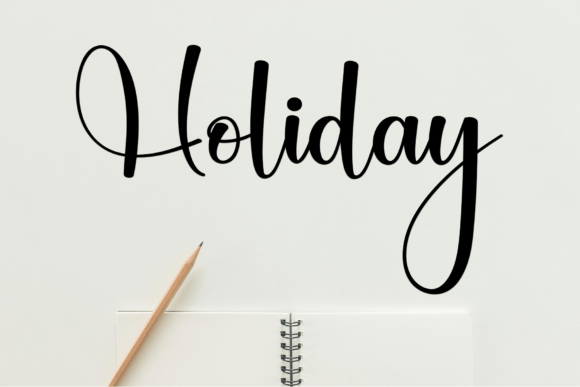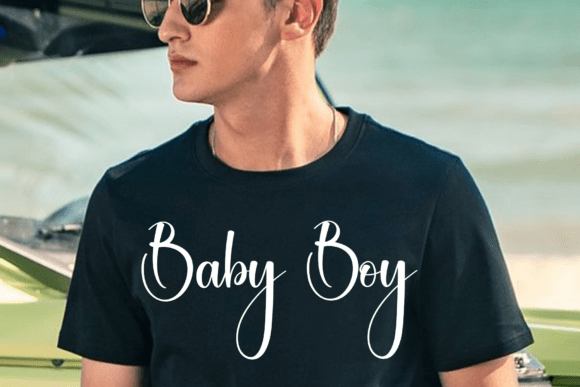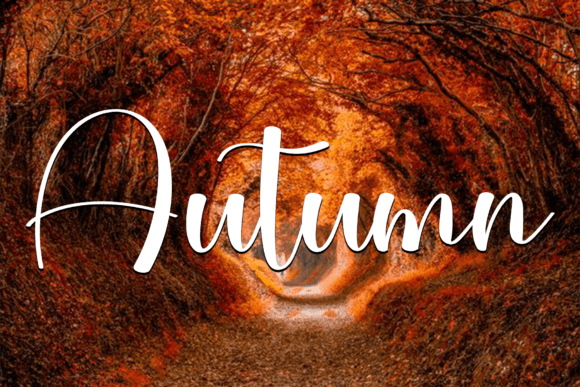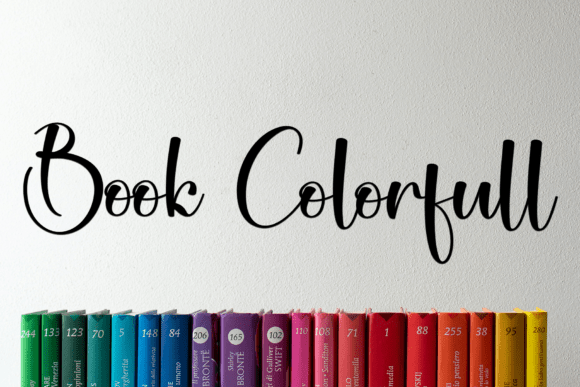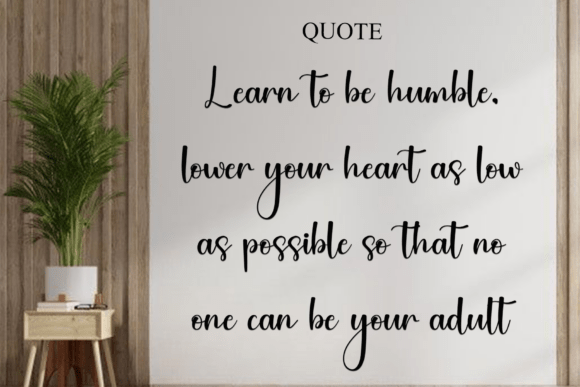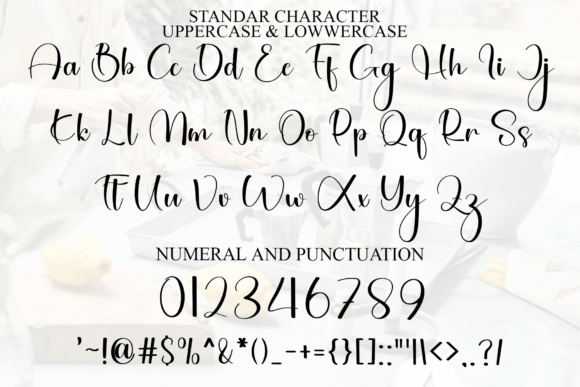
The Magic of Dekade Font: Elevate Your Holiday Designs
It’s that time of the year again – the season of joy, giving, and endless design projects. I’m sure many of you, like me, have been in a situation where you’re working on a festive design, and something feels off. The font just doesn’t capture the magic of the holiday season. I recall a particularly frustrating experience when I was tasked with creating a Christmas card for a client. I spent hours scouring font libraries, but nothing seemed quite right. That was until I stumbled upon the Dekade Font.
With its decorative elements and whimsical flair, Dekade Font adds a touch of enchantment to your designs. This festive and merry typeface is perfect for greeting cards, gift tags, and holiday-themed projects, bringing a cheerful and nostalgic ambiance to your words. In this article, we’ll dive into the world of Dekade Font, exploring its features, and how to make the most of it in your designs.
An Honest Review of Dekade Font
What I Love About Dekade Font
- ✨ Festive and merry vibe that’s perfect for the holiday season
- ✅ PUA encoded for easy access to glyphs and ligatures
- 🎉 Whimsical flair that adds a touch of magic to your designs
- 📚 Extensive character set for versatility in your projects
While Dekade Font is a stunning addition to any design project, there are a few things to keep in mind:
- ⚠️ Some users may find the font a bit too ornate for certain projects
- 🤔 Limited use outside of holiday-themed designs, as the font’s festive nature may not be suitable for other contexts
The Backstory of Dekade Font
Dekade Font was designed with the holiday season in mind. The creator wanted to craft a font that would capture the magic and wonder of this special time of year. With its decorative elements and whimsical flair, Dekade Font is the perfect addition to any festive design project. Whether you’re a designer, crafter, or creative hobbyist, this font is sure to bring a touch of enchantment to your work.
Q: What is PUA encoding, and how does it benefit Dekade Font?
A: PUA (Private Use Area) encoding allows for easy access to glyphs and ligatures, making it simple to use Dekade Font’s extensive character set.
Q: Is Dekade Font suitable for non-holiday designs?
A: While Dekade Font’s festive nature makes it perfect for holiday designs, it may not be the best choice for other contexts. However, feel free to experiment and see if it works for your project!